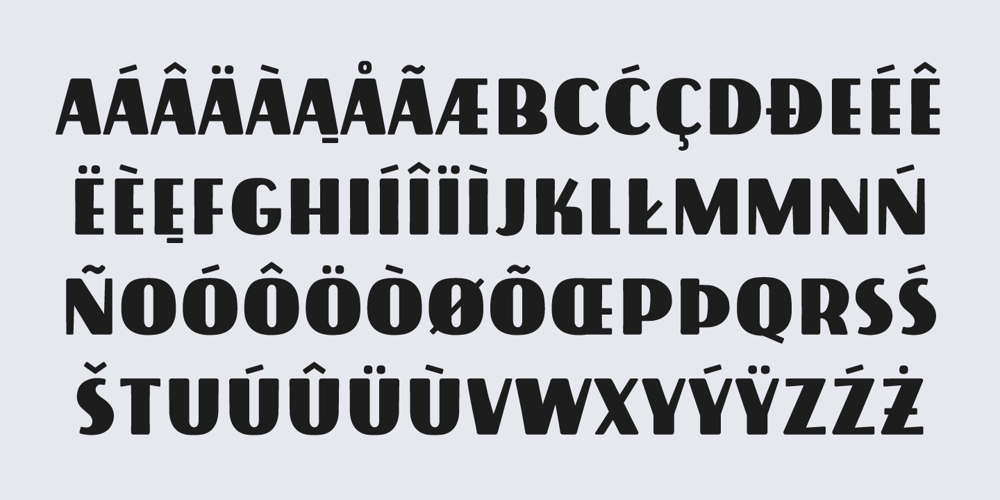
Rudolf
Rudolf font
Rudolf Font Family was designed by Zuzanna Rogatty and published by Zuzanna Rogatty. Rudolf contains 1 styles and family package options. Rudolf typeface was designed on the basis of medals made by author’s grandfather, the sculptor Rudolf Rogatty. He used lettering that was very typical of monuments, medals and commemorative plaques during communist times in Poland, which can still be seen today in any Polish city. These letters are beautiful for their imperfection and they have very strictly defined rules governing their structure.